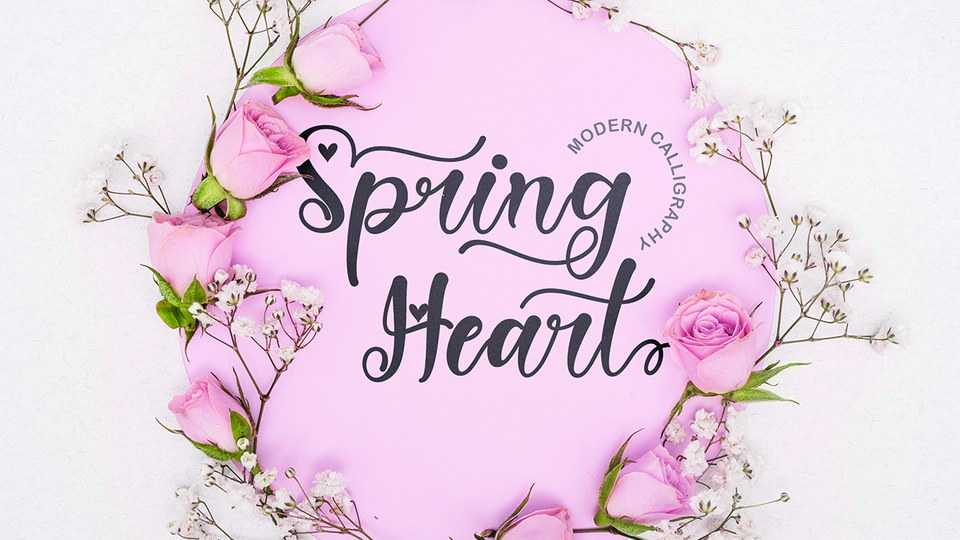
Download Spring Heart font, a very beautiful, unique calligraphy typeface, which combines spring and a cozy heart. Spring Heart is perfect for spring, wedding, mother day, father day, Patrick day, Easter, earth day, and other projects.